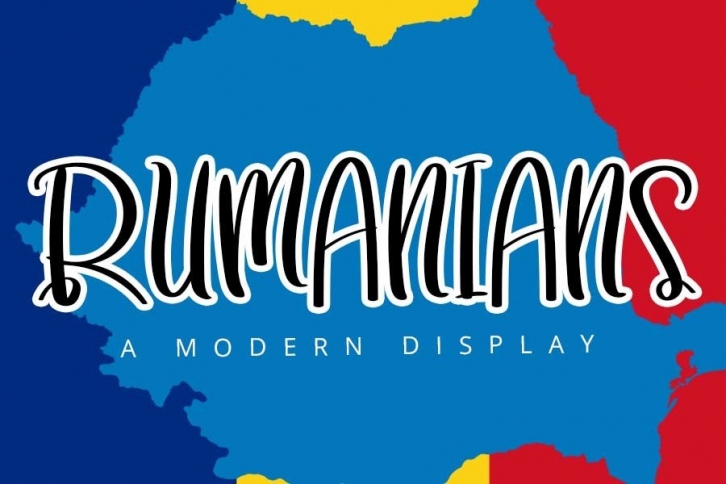
Rumanians is a tall, casual and relaxed handwritten font. Its natural and unique style makes it incredibly fitting to a large pool of designs. The only limit is your imagination!